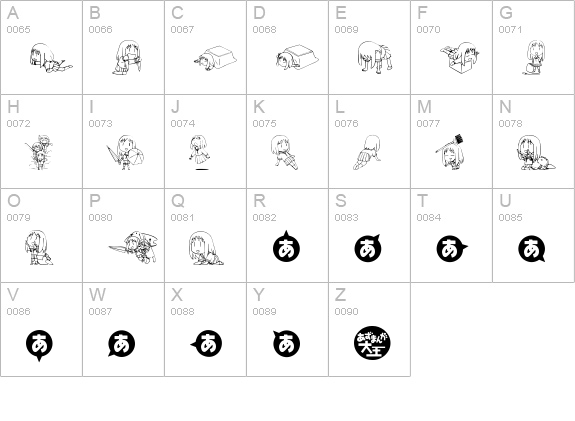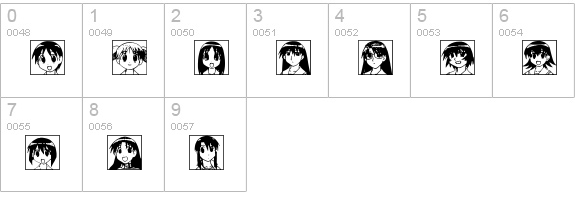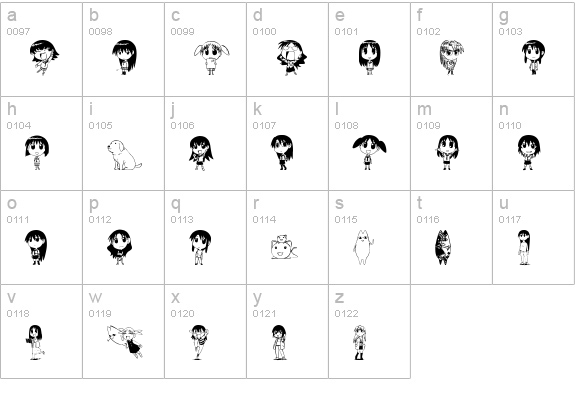
Azudings 1 Font Details
Azudings 1 font is a versatile and stylish typeface that combines modern aesthetics with a touch of playfulness. With its unique and eye-catching character design, this font is perfect for a wide range of creative projects, from branding to social media graphics. The Azudings 1 font features a sleek and contemporary look that will make your text stand out and grab attention. Best of all, Azudings 1 font is available for free download at FontsMarket.com. This means you can easily access this amazing font without any cost, making it a great choice for designers and content creators looking to add a fresh and dynamic element to their work. Whether you're working on a personal project or a professional design, Azudings 1 font is sure to elevate your creations with its unique charm and modern flair. Download it now and start unleashing your creativity!